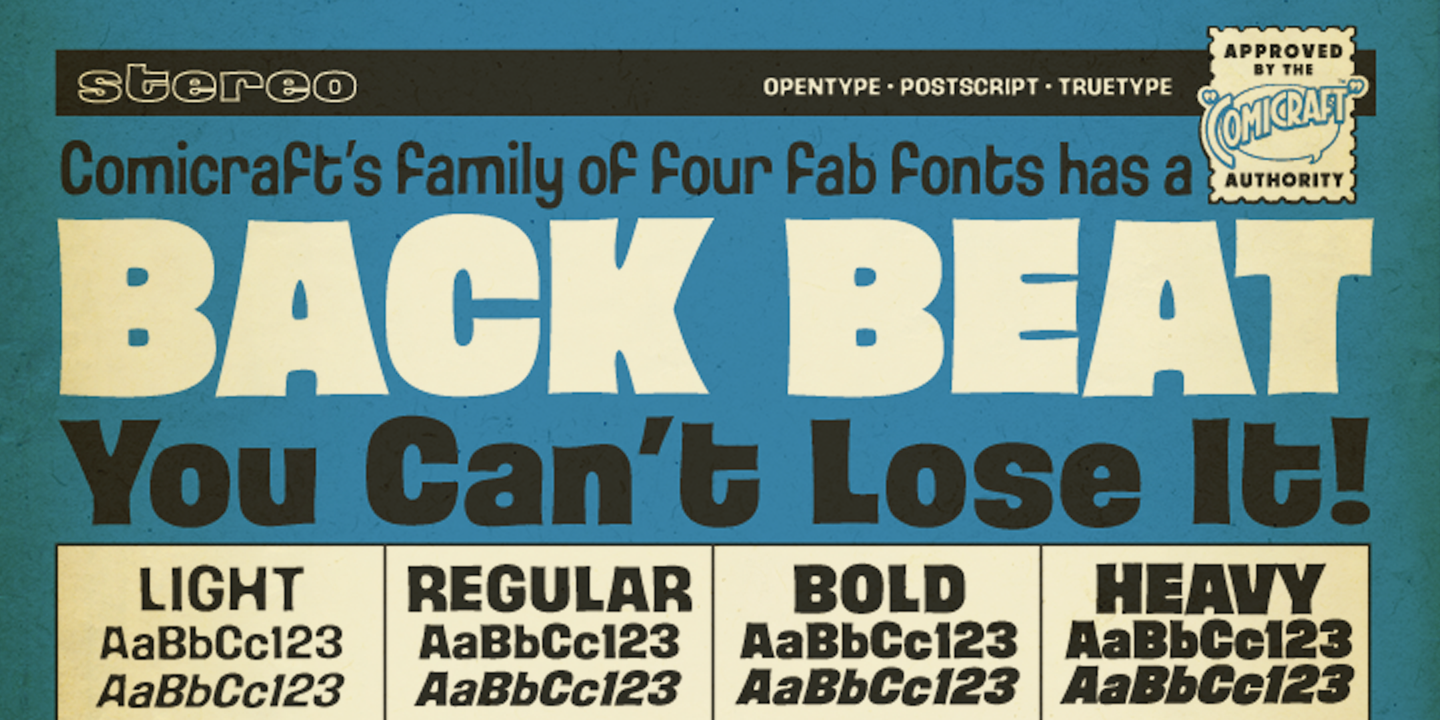
Back Beat Font is perfect for music band logos, vinyl record covers, retro radio station branding, concert poster designs, music festival graphics, drummer merchandise, vintage music store signage, rock club advertisements, audio equipment packaging, and rhythmic social media campaigns.
What makes Back Beat Font so exciting is its pulsating rhythm that perfectly captures the driving energy and timeless groove of classic music culture. This dynamic display typeface features rhythmic letterforms, musical flow, and beat-inspired styling that creates an immediate sense of musical movement and sonic energy, making it the ultimate choice for brands that want to communicate musical passion, rhythmic excellence, and the unstoppable power of great beats.
The Back Beat Font family includes regular, bold, italic, and condensed versions, along with musical symbols, rhythm indicators, sound wave motifs, and beat-inspired decorative elements. Each style maintains the font's signature musical character while providing designers with versatile options for creating genuinely rhythmic communications that make audiences feel the beat and move to the music.
Whether you're designing for recording studios or live music venues, Back Beat Font Free Download delivers the musical energy needed to communicate rhythm, passion, and authentic musical culture. The font's rhythmically crafted letterforms ensure excellent readability while maintaining its distinctive beat character that resonates with musicians, music lovers, and anyone who feels the pulse of great music.
This musically inspired typeface works brilliantly across both vintage vinyl packaging and modern digital music platforms. The Back Beat Font maintains its rhythmic appeal whether displayed on classic album covers or streaming music interfaces, making it essential for anyone in the music industry who wants to capture the eternal power of rhythm and beat.
Feel the rhythm with Back Beat Font and experience typography that moves with the unstoppable groove of music's most powerful beats.